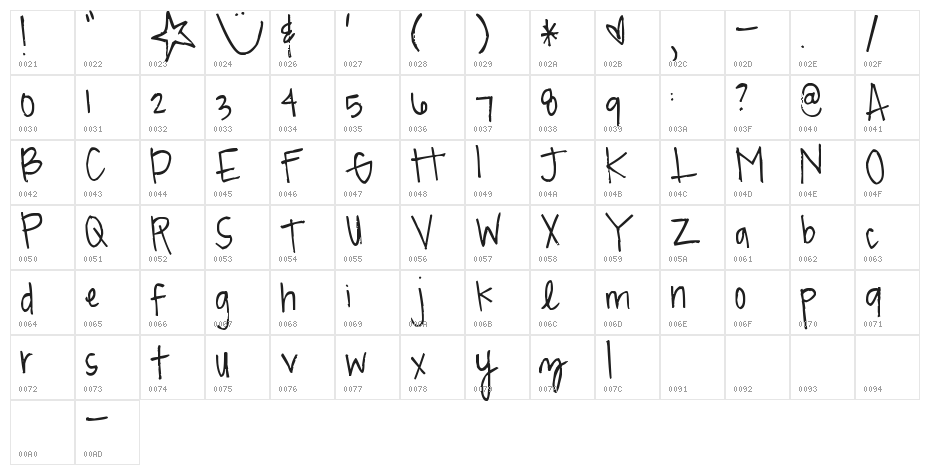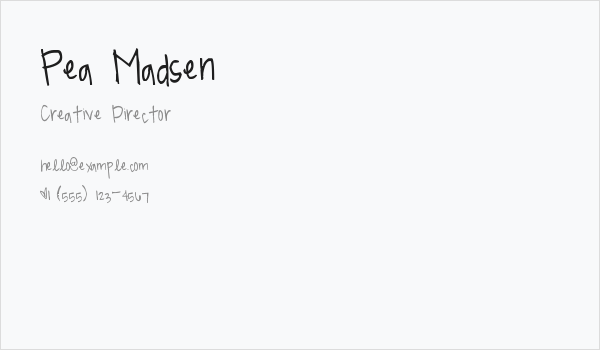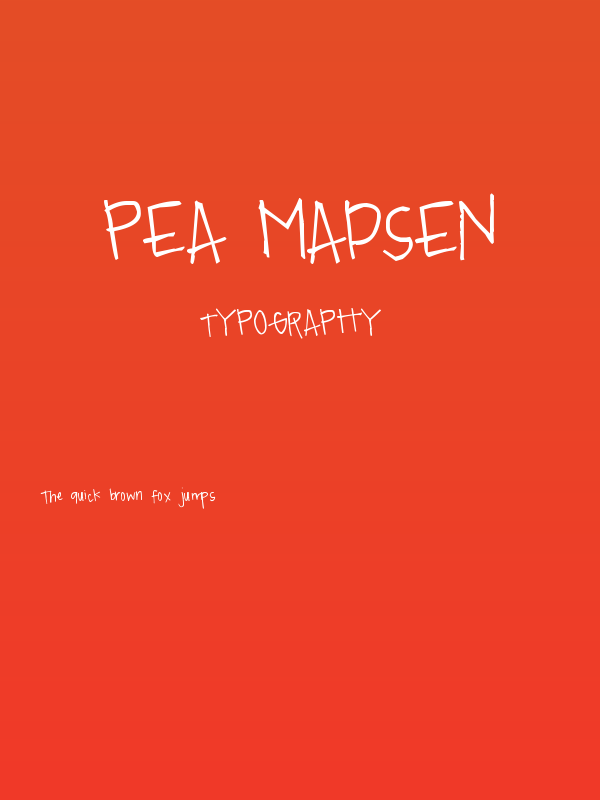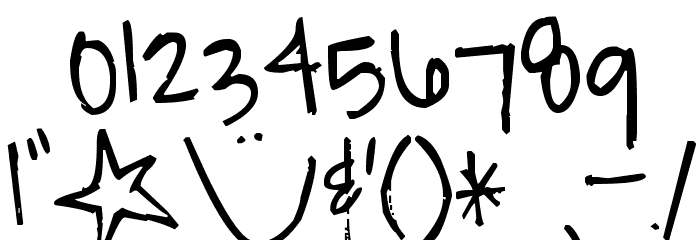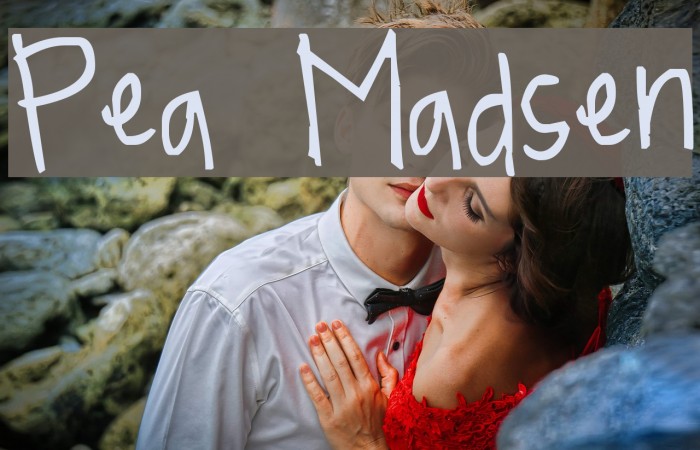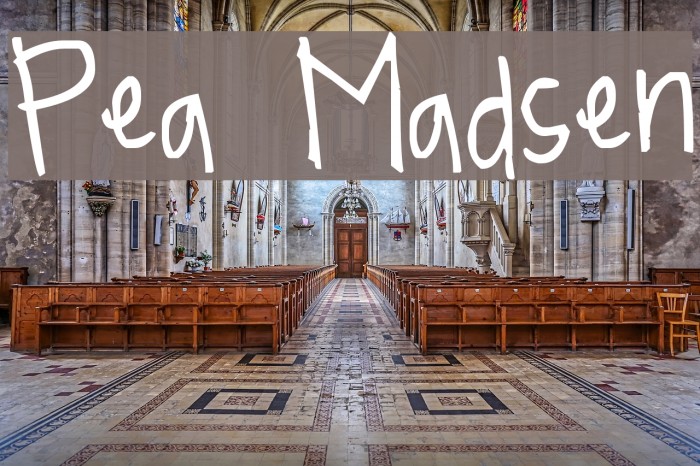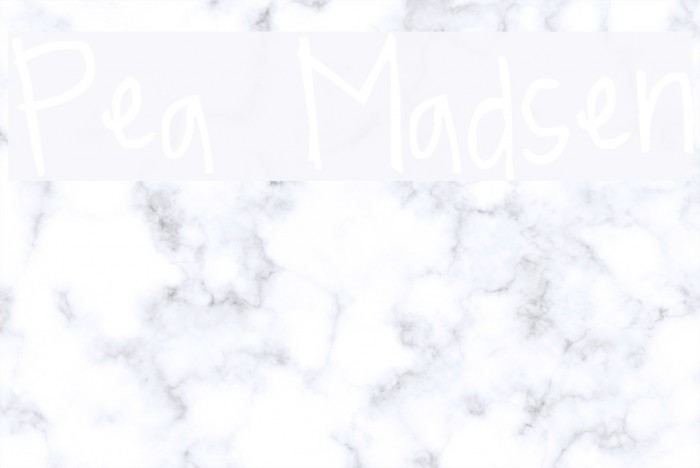
Pea Madsen Font
This font features a playful and casual handwritten style, characterized by its irregular and slightly uneven strokes. The letters are tall and narrow, giving it a unique and quirky appearance. The uppercase and lowercase letters maintain a consistent style, with a natural flow that mimics authentic handwriting. The numbers and special characters are crafted with the same playful touch, adding to the font's overall charm. This font is perfect for projects that require a personal and informal touch, such as greeting cards, invitations, or children's books. Its distinctive style makes it stand out, while still being legible and approachable.
| Use Case | Headlines, Informal text, Personal projects |
| Proposed Projects | Ideal for greeting cards, invitations, children's books, and personal projects. |